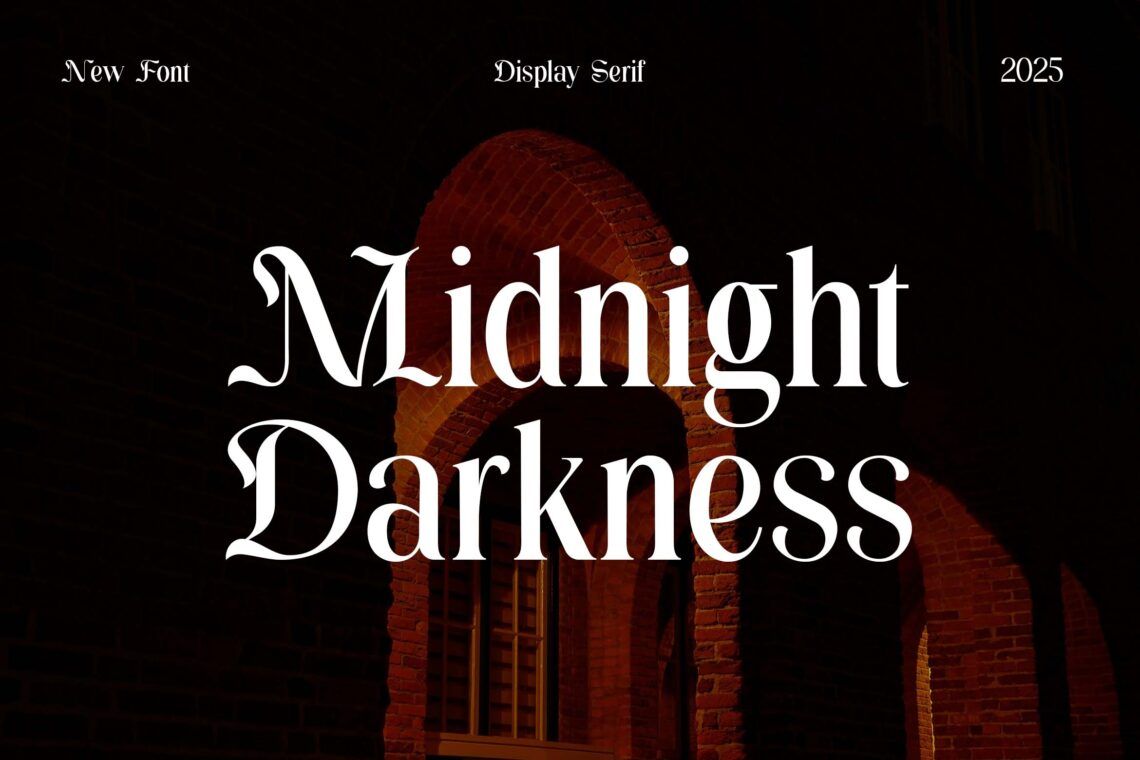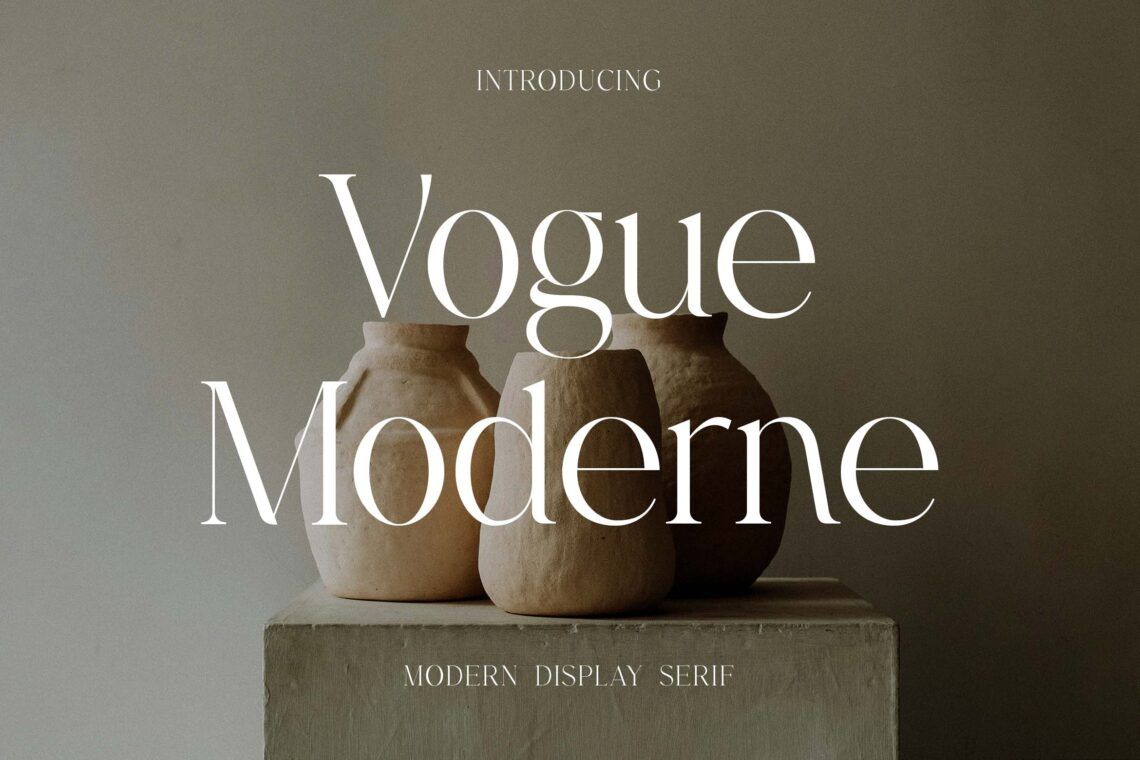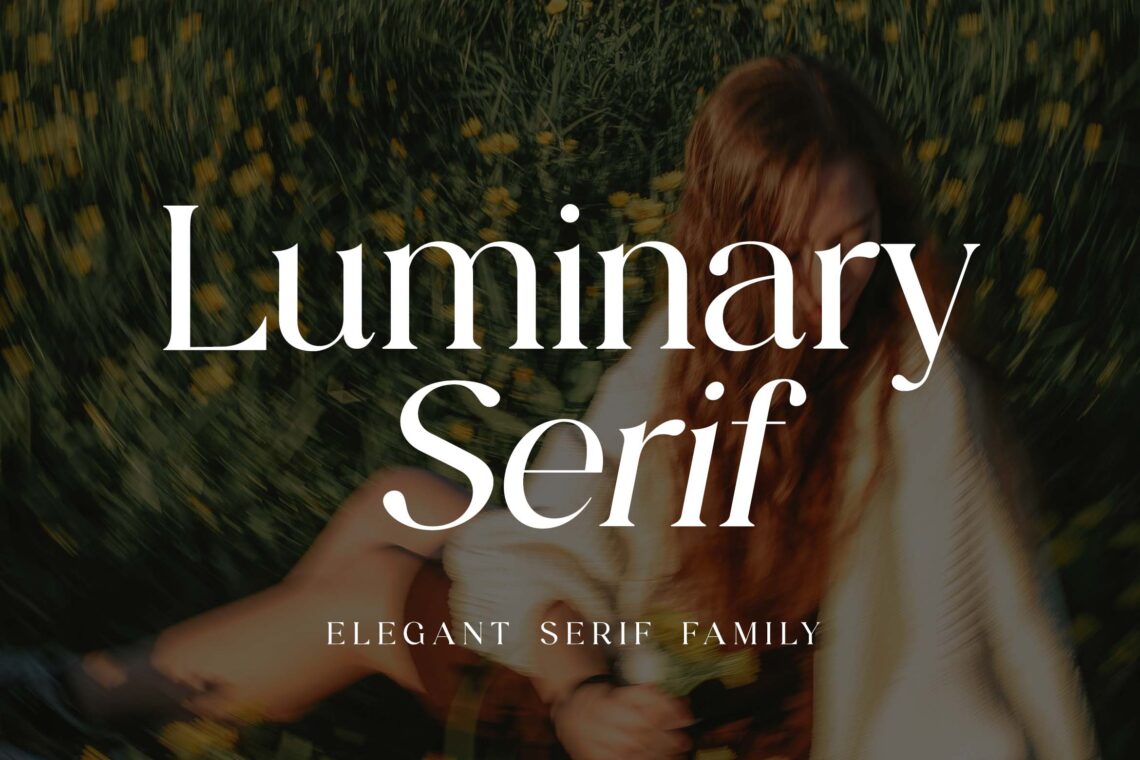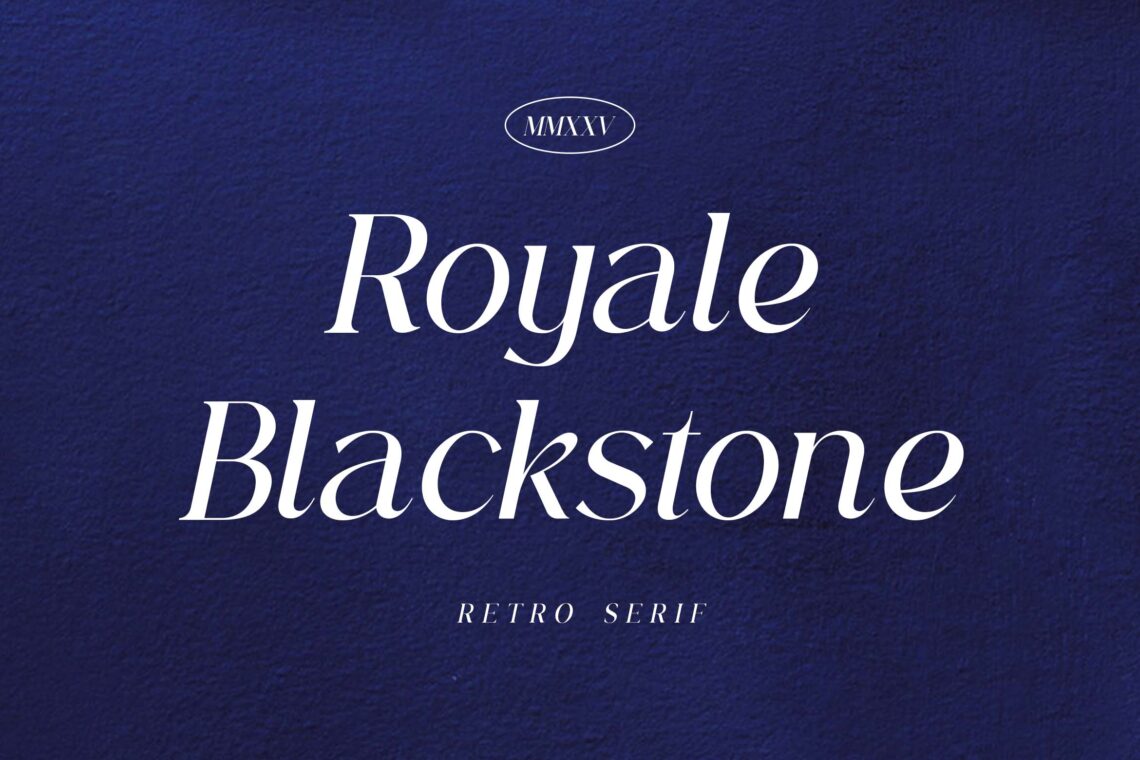
10 Best Font for Eid Adha 2025
Eid al-Adha is a time of celebration, spirituality, and heartfelt connection—and design plays a big role in expressing these emotions visually. Whether for greeting cards, posters, social media content, or business promotions, the right typography sets the tone. The font for Eid Adha 2025 trend embraces elegance, tradition, and modern flair, combining calligraphic touches with contemporary style.
In this article, we’ve gathered ten standout options that capture the festive and meaningful spirit of the holiday—each font for Eid Adha 2025 is perfect for creating warm, eye-catching designs.
1. Regalia Monarch Luxury Serif Font
Regalia Monarch Luxury Serif Font is a refined and majestic typeface that exudes elegance, power, and timeless sophistication. With its high-contrast strokes, graceful serifs, and regal proportions, this font is perfect for luxury branding, upscale packaging, fashion editorials, invitations, and high-end logo design. Regalia Monarch brings a sense of grandeur and poise to every project—making it ideal for brands that want to make a bold, stylish, and lasting impression. Whether used in headlines or logos, this font elevates your design with noble character and artistic finesse.
2. Midnight Darkness Display Serif Font
Midnight Darkness Display Serif Font is a bold, mysterious typeface that combines dramatic flair with elegant gothic undertones. With its sharp serifs, high contrast strokes, and cinematic presence, this font is perfect for book covers, movie posters, branding, fashion lookbooks, and editorial headlines that need to captivate at first glance. Midnight Darkness evokes a moody sophistication, making it ideal for projects that balance edge and elegance. Whether you’re crafting a dark fantasy aesthetic or a bold luxury identity, this display font brings intensity, refinement, and visual intrigue to every design.
3. Retro Gramophone Retro Vintage Font
Retro Gramophone Retro Vintage Font is a charming typeface inspired by the golden era of music, posters, and pop culture. With its bold letterforms, groovy curves, and vintage flair, this font instantly transports your design back to the lively spirit of the ’60s and ’70s. Perfect for retro branding, album covers, T-shirt designs, café menus, posters, and social media graphics, Retro Gramophone brings warmth, personality, and a touch of classic cool to any creative project. Whether you’re channeling disco vibes, old-school advertising, or nostalgic storytelling, this font delivers timeless character with every letter.
4. Vogue Modern Display Serif Font
Vogue Modern Display Serif Font is a sophisticated typeface that blends contemporary elegance with timeless editorial charm. Featuring sleek serifs, clean contrast, and graceful curves, this font is perfect for luxury branding, high-fashion magazines, beauty packaging, wedding invitations, and upscale logos. Vogue Moderne exudes confidence and modern femininity, making every design feel polished and stylish. Whether you’re building a brand identity or designing standout headlines, this font adds a touch of refined glamour that effortlessly captures attention and elevates your visual storytelling.
5. Royale Blackstone Retro Serif Font
Royale Blackstone Retro Serif Font is a powerful and charismatic typeface that merges vintage flair with modern boldness. With thick serifs, dramatic curves, and a strong, grounded structure, this font evokes the charm of classic signage and editorial headlines from the mid-20th century. Perfect for logos, branding, posters, apparel, packaging, and retro-inspired design, Royale Blackstone brings a sense of authority, nostalgia, and visual impact to every project. Whether you’re creating a standout identity or channeling timeless vibes, this font delivers bold personality with undeniable retro elegance.
6. Luminary Serif Elegant Serif Family Font
Luminary Serif Elegant Serif Family Font is a refined and timeless typeface that combines classic serif elegance with modern versatility. With its beautifully balanced letterforms, gentle contrast, and crisp serifs, this font family is ideal for editorial design, branding, wedding invitations, luxury packaging, and sophisticated websites. Available in multiple weights, Luminary Serif offers flexibility for both bold headlines and delicate body text, making it perfect for designers who value both beauty and functionality. Whether you’re building a high-end identity or crafting elegant print materials, this font adds an effortless sense of class and professionalism.
7. Classical Prime Nostalgic Serif Font
Classical Prime Nostalgic Serif Font brings vintage charm and timeless elegance to modern design. Inspired by classic editorial typography and old-world print aesthetics, this font features graceful serifs, refined curves, and a nostalgic tone that’s perfect for branding, packaging, wedding invitations, book covers, fashion magazines, and heritage-inspired projects. Classical Prime captures the essence of sophistication and storytelling, adding depth and personality to any layout. Whether you’re evoking the past or creating something uniquely timeless, this font delivers beauty, clarity, and a lasting impression with every letter.
8. Prestige Display Serif Display Font
Prestige Display Serif Display Font is a luxurious and eye-catching typeface designed to make a bold statement. With its high-contrast strokes, sharp serifs, and refined letterforms, this font evokes sophistication and authority—perfect for fashion editorials, premium branding, logos, packaging, and high-end advertising. Prestige exudes elegance and modern charm, making it ideal for designers who want their work to stand out with a touch of timeless class. Whether used for headlines or visual identities, this display serif font brings style, structure, and prestige to every creative project.